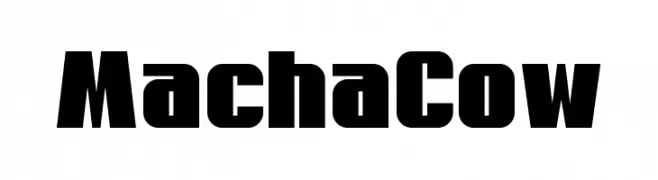
A playful, rounded font with smooth curves and a friendly appearance.
A modern, flowing script font with elegant, slanted characters.
A playful, bold font with rabbit ear-like ascenders and rounded characters.
A futuristic, geometric font with a unique blend of solid and outlined elements.
A sleek, modern font with thin, geometric strokes and a minimalist aesthetic.
A playful, whimsical font with quirky, hand-drawn letterforms.
A bold, geometric font with strong, consistent strokes and an industrial feel.
A clean, modern semi-bold font with a friendly and balanced design.
A decorative font with a hollow, zigzag outline for a bold, artistic look.
A modern, geometric font with smooth, rounded edges and consistent structure.
A bold, blocky font with high contrast and a modern, impactful style.
A modern, expanded font with geometric shapes and uniform stroke weight.
A decorative and intricate font with geometric and abstract elements.
A bold, playful font with whimsical lowercase letters and thick strokes.
A playful font combining geometric and cursive elements with bold strokes.
A bold, geometric font with a modern and futuristic style.
A playful and bold font with exaggerated curves and dynamic contrast.
A decorative serif font with snowflake embellishments, perfect for festive designs.
A reverse italic font with sharp, clean lines and a modern twist.
A bold, italic font with a modern and dynamic style.
A dot matrix style font with a retro-futuristic digital display look.
A bold, decorative font with geometric influences and high contrast.
A bold, geometric font with a futuristic, digital aesthetic.
A bold, angular font with a dynamic and modern style.
A playful, hand-drawn font with tall, narrow letters and a quirky, organic style.
A bold, geometric font with a modern and playful design.
A futuristic, angular font with geometric shapes and sharp edges.
A playful, bold font with an organic and whimsical design.
A whimsical, hand-drawn font with irregular, wavy lines and playful curves.
A bold, three-dimensional font with a playful and dynamic style.